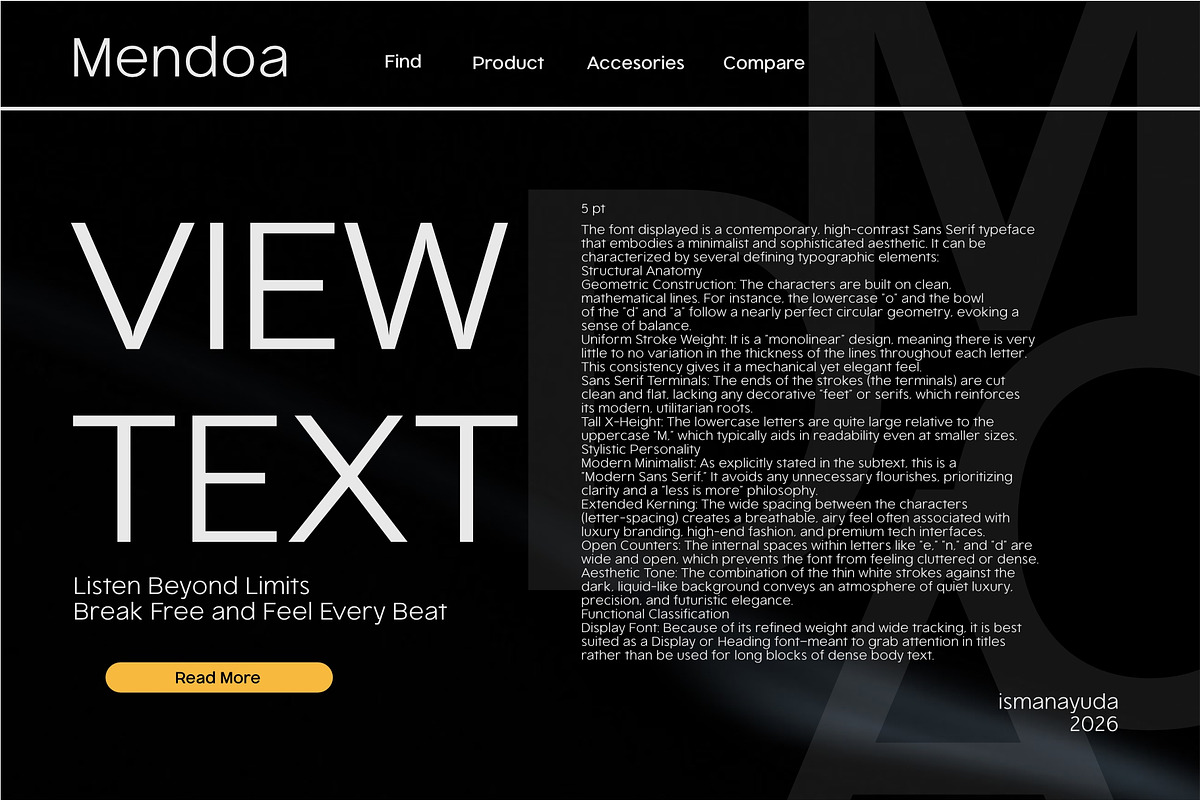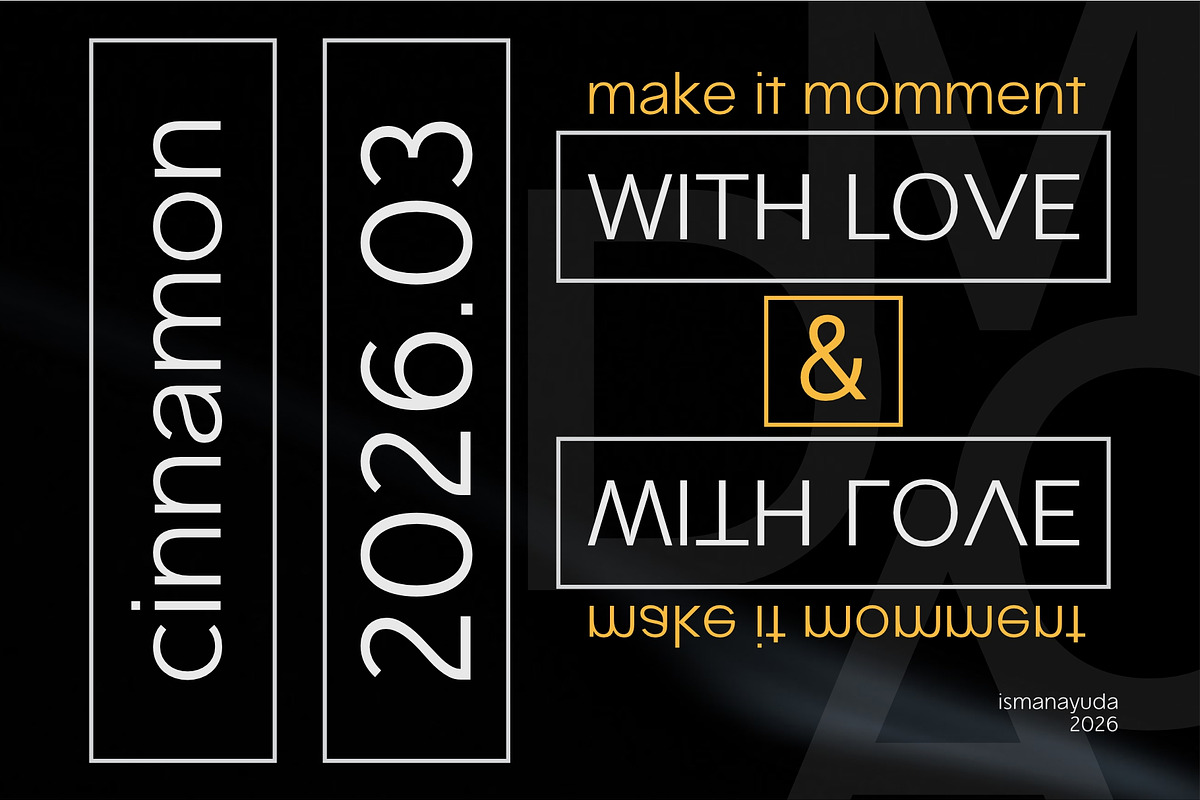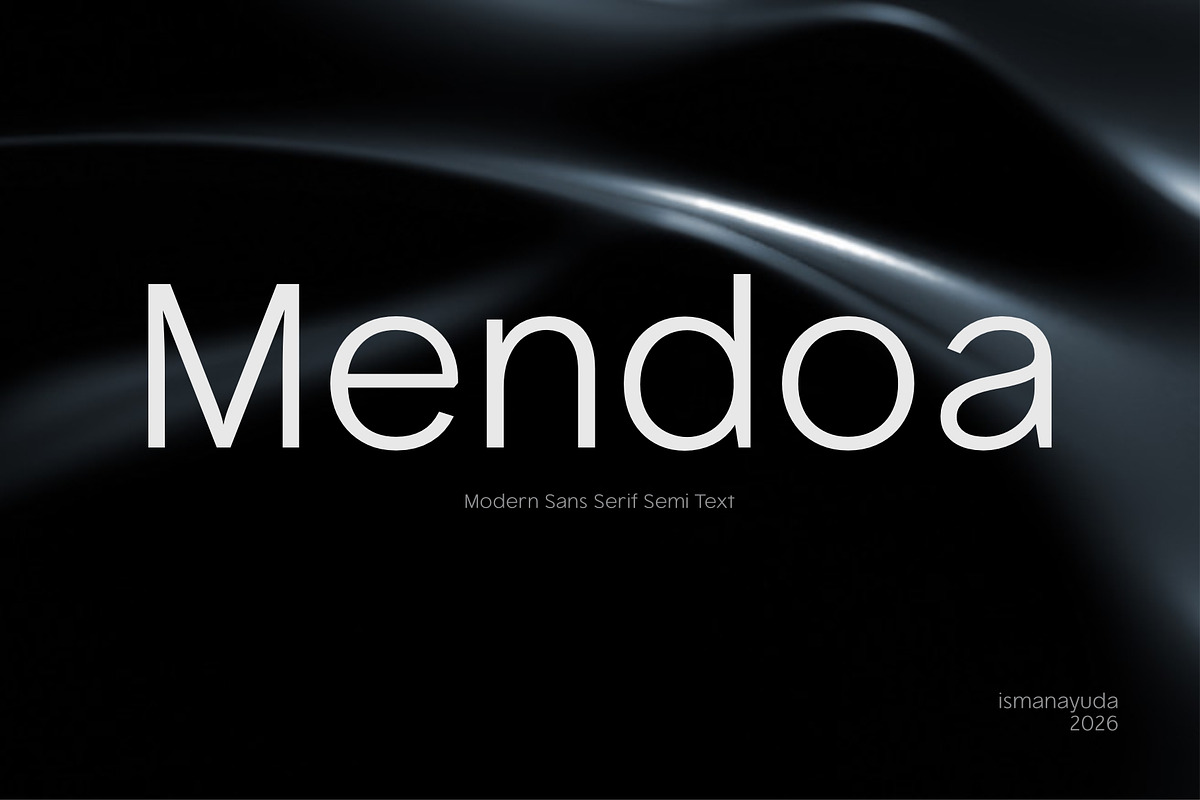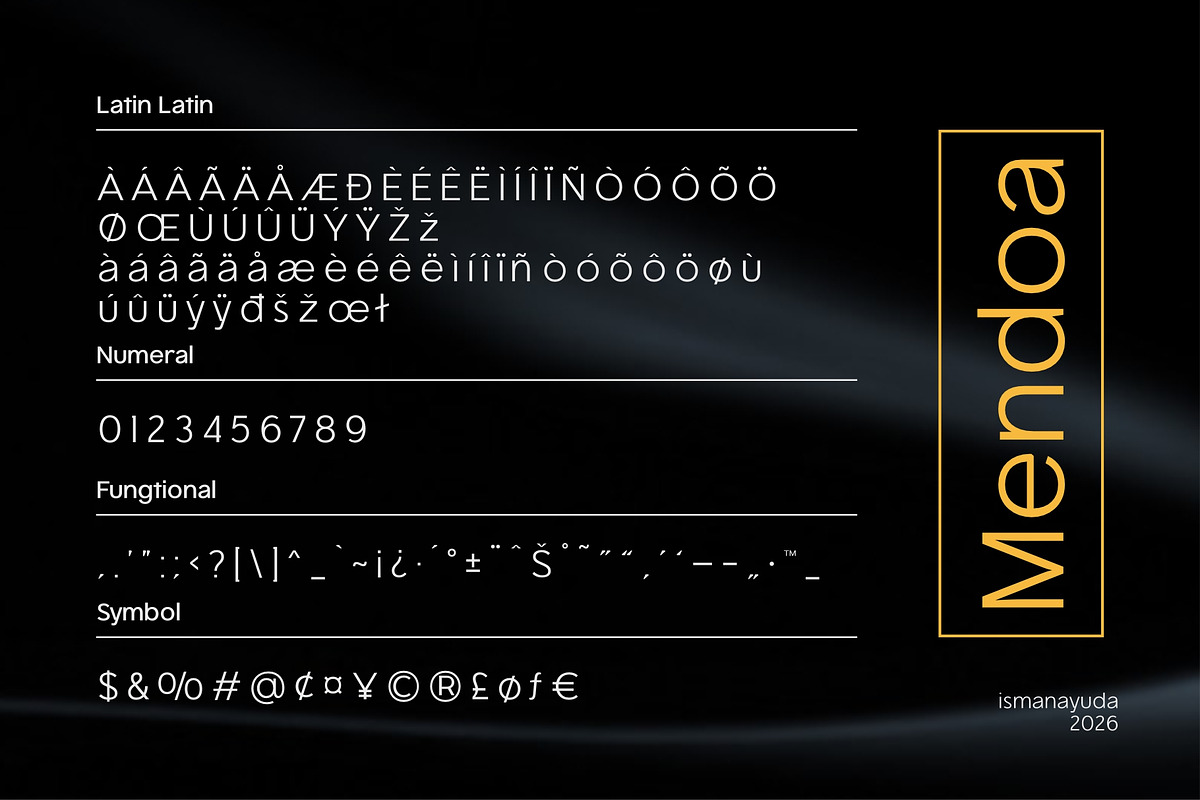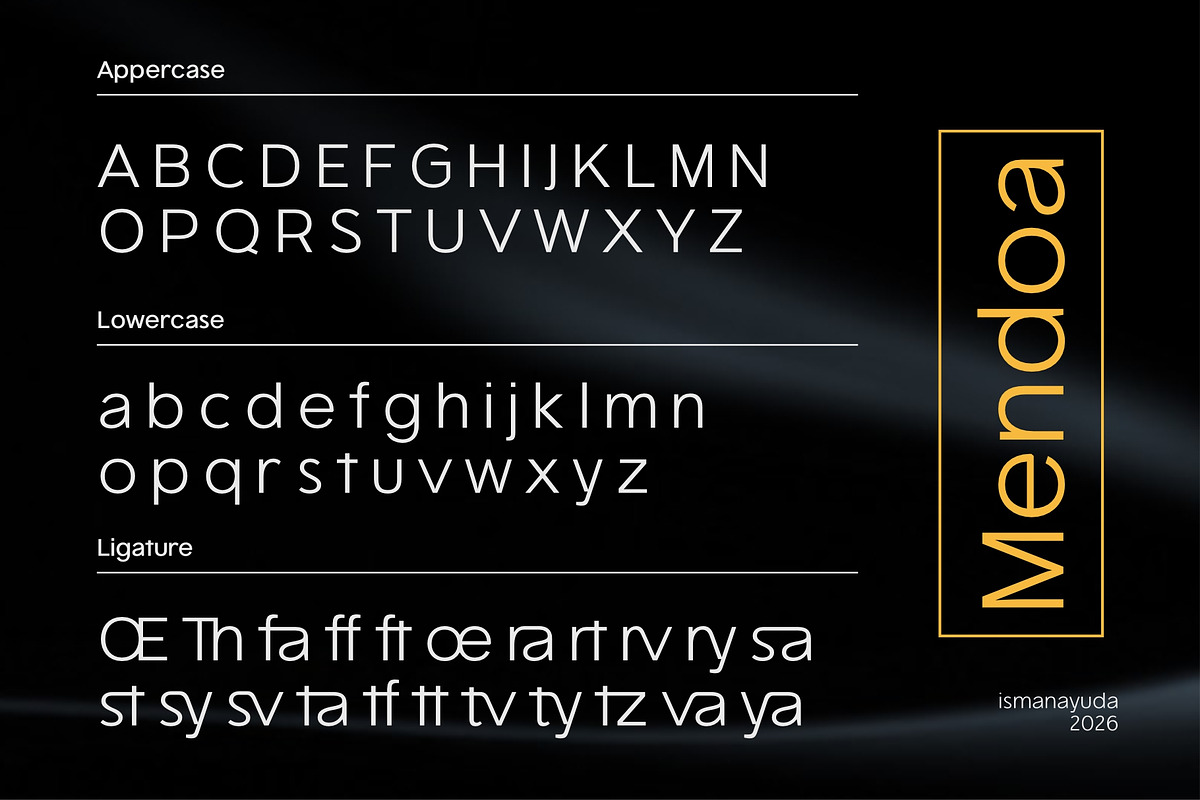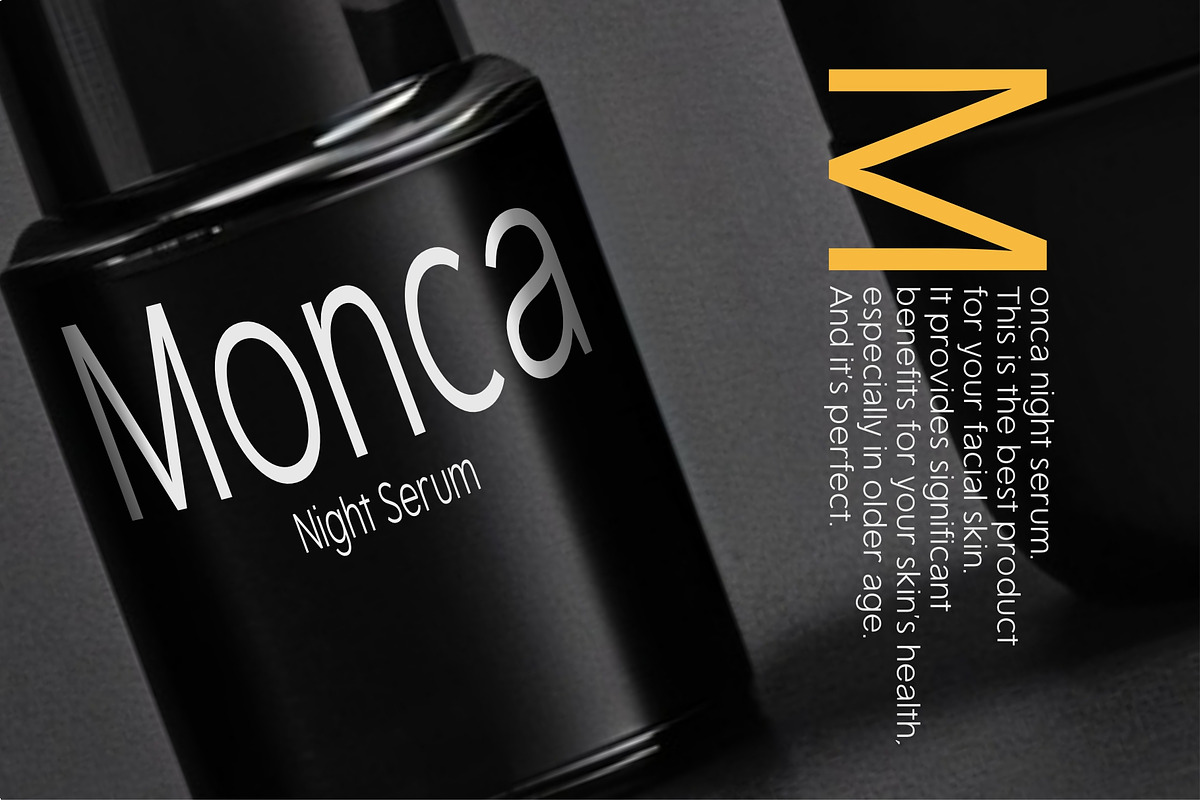
Mendoa
The font displayed is a contemporary, high-contrast Sans Serif typeface that embodies a minimalist and sophisticated aesthetic. It can be characterized by several defining typographic elements: Structural Anatomy Geometric Construction: The characters are built on clean, mathematical lines. For instance, the lowercase "o" and the bowl of the "d" and "a" follow a nearly perfect circular geometry, evoking a sense of balance. Uniform Stroke Weight: It is a "monolinear" design, meaning there is very little to no variation in the thickness of the lines throughout each letter. This consistency gives it a mechanical yet elegant feel. Sans Serif Terminals: The ends of the strokes (the terminals) are cut clean and flat, lacking any decorative "feet" or serifs, which reinforces its modern, utilitarian roots. Tall X-Height: The lowercase letters are quite large relative to the uppercase "M," which typically aids in readability even at smaller sizes.